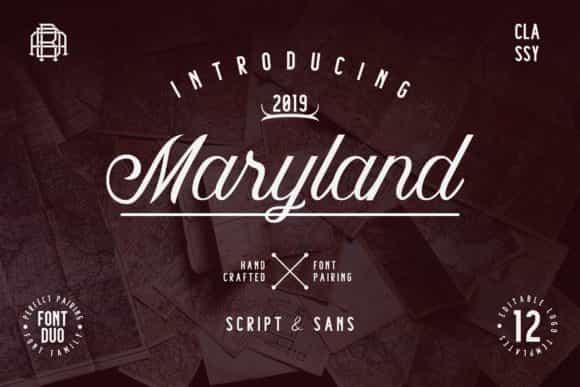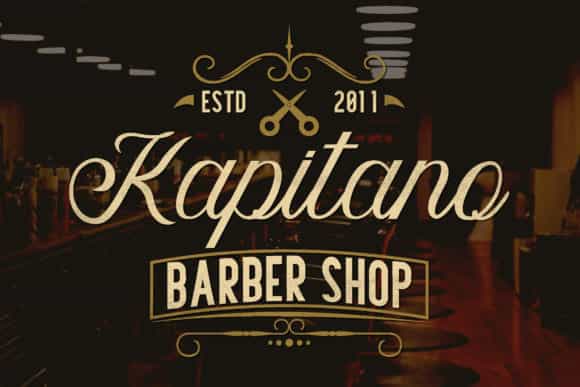
Maryland is a fantastic font family. The set consists of a script and sans version which can be put together in a perfect way. It is the ideal font for logos, labels, packaging, headlines and all other designs that need a classy, yet modern look.